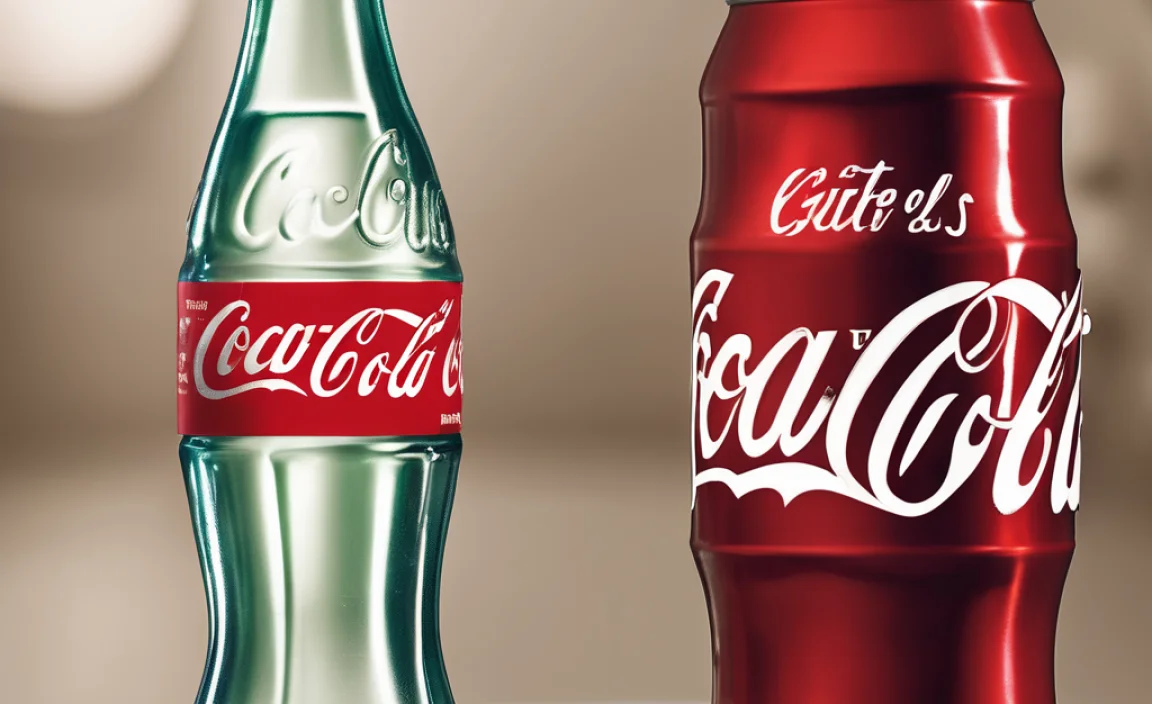
The Coca-Cola font is as iconic as the beverage itself is recognized worldwide. Whether you’re looking to create custom advertising for your brand or simply curious about the history of this signature typeface, this guide will walk you through the design, style, and practical uses of the Coca-Cola logo’s font.
The Coca-Cola Font Name & The Story Behind Its Unique Script
The Coca-Cola font is based on Spencerian script, a cursive typeface widely used in the United States from the 1850s to the early 20th century. Frank Mason Robinson created the Coca-Cola logo in 1885. He designed it to represent elegance and refreshment. The logo features fluid, connected lettering that makes it stand out.
The Coca-Cola font takes its name from the two key ingredients: coca leaf and kola nut. These ingredients were originally part of the soft drink’s formula. Although both ingredients have been removed over time, the name has remained. Today, the Coca-Cola logo is an instantly recognizable symbol worldwide.
The Coca-Cola Logo And Its Impact
Since its debut, the Coca-Cola logo and font have become synonymous with refreshment, joy, and global celebrations. The Coca-Cola Company has used this distinctive font in everything from Coca-Cola products to Coca-Cola fountain drinks in Costco food courts and advertising campaigns. The red and white colors that surround the font help make it even more memorable, especially in targeted advertising, where the bold and vibrant hues stand out to potential customers.
Today, the logo remains a symbol of the brand’s rich heritage and its ability to adapt to modern advertising practices, such as embracing black history during identity months and reflecting relevant adverts in contemporary campaigns.
Fonts Similar To Coca-Cola
- Coca-Cola ii
- Loki Cola
While the original Coca-Cola font is proprietary, several fonts capture its essence. Coca-Cola ii is a free font that mimics the look of the Coca-Cola logo with its elegant Spencerian script style. Another similar font is Loki Cola by Utopia, which offers additional swash options for a more stylized and artistic touch.
- Cultural Campaigns: Take inspiration from Coca-Cola’s branding to create campaigns that honor cultural events, such as celebrations during black history months or identity months, ensuring your materials feel both relevant and respectful.
The Coca-Cola Brand In The Modern Age
As a company, Coca-Cola continues to adapt and evolve in the marketplace. From its famous logo to its marketing campaigns, the brand has remained a major presence in global advertising. Coca-Cola succeeds by tapping into emotional connections with consumers. It continually offers a wide range of drink choices. At the same time, it adapts to evolving consumer preferences.
A Look At The Coca-Cola Logo And Its Cultural Relevance
The Coca-Cola logo symbolizes joy and festivity. It serves as a powerful tool for celebrations. It creates shared experiences and enhances moments of happiness. Whether you’re enjoying a Coca-Cola product at a family gathering or at a Costco food court, the logo serves as a visual reminder of good times and refreshment.
- What Impact Did The Coca-Cola Font Have On Global Branding? The Coca-Cola font has become one of the most recognizable symbols of refreshment and joy worldwide.
- What Other Companies Use Similar Fonts To Coca-Cola’s? Many beverage brands use similar Spencerian script fonts for their logos and advertising.